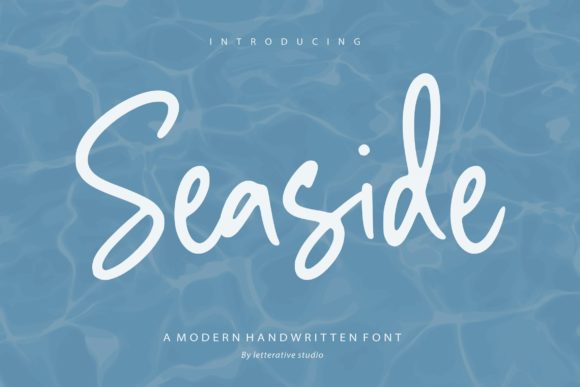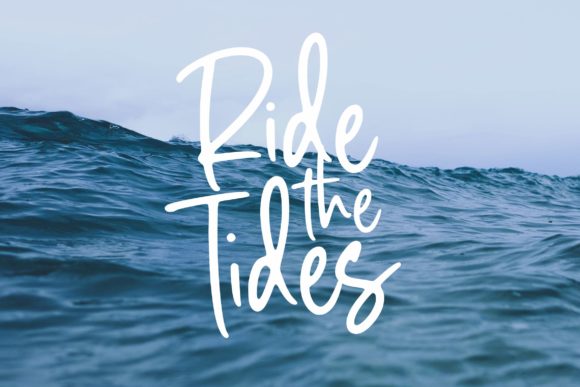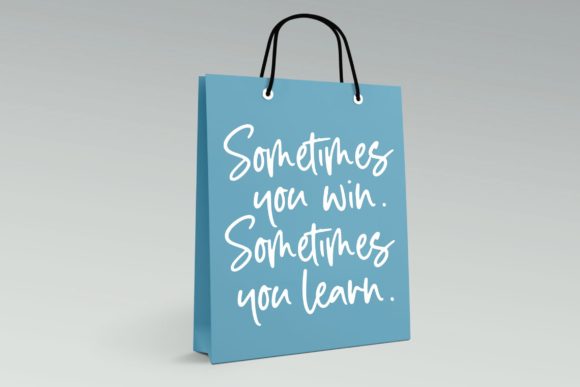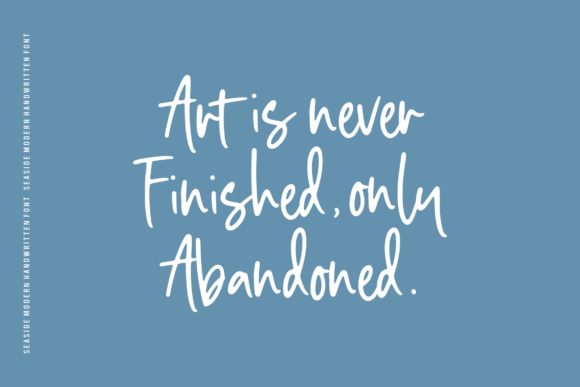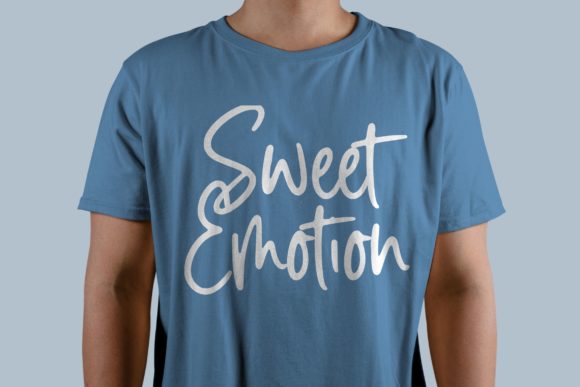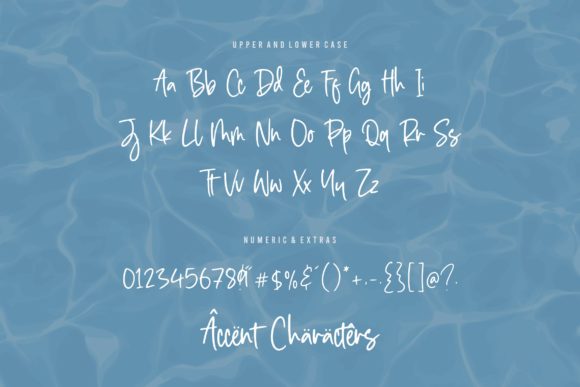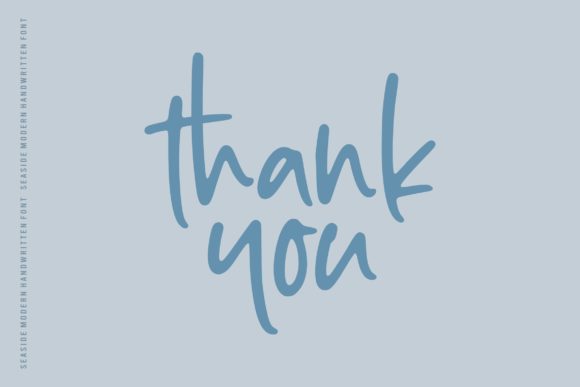
Seaside Font
About Seaside Font
Seaside is a versatile and contemporary handwritten font that adds a touch of simplicity and relaxation to your designs. With its clean and modern style, Seaside is a great choice for a wide range of applications, including product packaging, branding projects, magazine covers, social media graphics, and more.
When used in product packaging, Seaside brings a fresh and contemporary vibe to your designs. Its clean and uncluttered letterforms create a sense of simplicity and elegance, making your product stand out on the shelves. Whether it’s for beauty products, food packaging, or any other consumer goods, Seaside adds a touch of modernity and sophistication to your brand identity.
For branding projects, Seaside offers a clean and stylish option to create a distinct visual identity. Its relaxed and natural style adds a personal and approachable touch to your logo, ensuring that your brand stands out from the crowd. Seaside’s simplicity and modernity make it versatile for various industries, from fashion and lifestyle to tech and startups.
Magazine covers can benefit from Seaside’s contemporary and relaxed style. The font adds a sense of modernity and freshness to headlines and subheadings, making them visually appealing and inviting to readers. Seaside’s legibility and simplicity ensure that your magazine cover communicates your message effectively while maintaining a stylish and approachable aesthetic.
On social media, Seaside adds a touch of simplicity and modernity to your graphics and posts. Its clean and relaxed letterforms make your messages easy to read and visually appealing. Whether it’s Instagram posts, Facebook banners, or Pinterest graphics, Seaside enhances your social media presence with its contemporary and laid-back style.
Seaside’s simplicity and versatility also make it suitable for a wide range of design projects. It can be used in website headers, blog banners, promotional materials, stationery, and more. Its relaxed and modern aesthetic ensures that your designs have a clean and contemporary look, while still maintaining a touch of warmth and approachability.
Overall, Seaside is a simple, modern, and relaxed handwritten font that adds a contemporary touch to your designs. Its versatility makes it suitable for various applications, from product packaging and branding to magazine covers and social media graphics. Embrace the clean and stylish aesthetic of Seaside and let it bring a sense of simplicity and modernity to your creative projects.